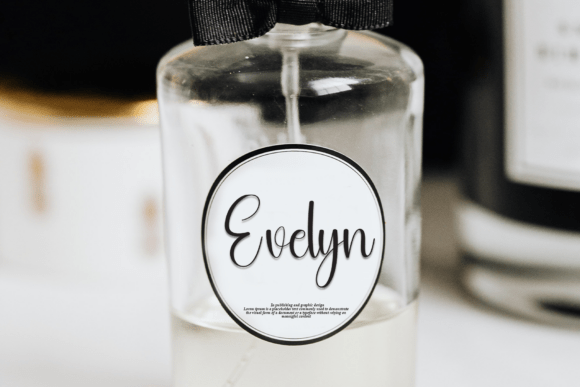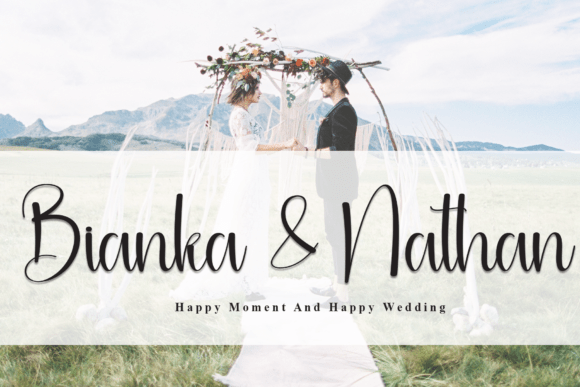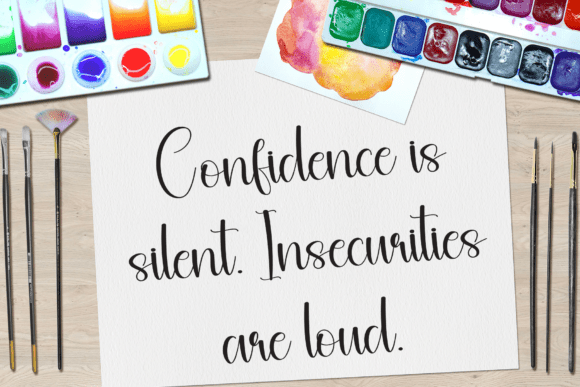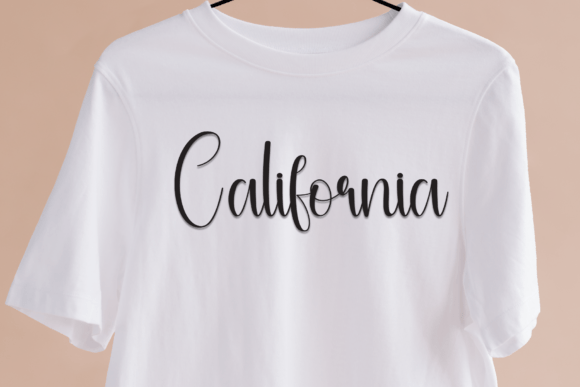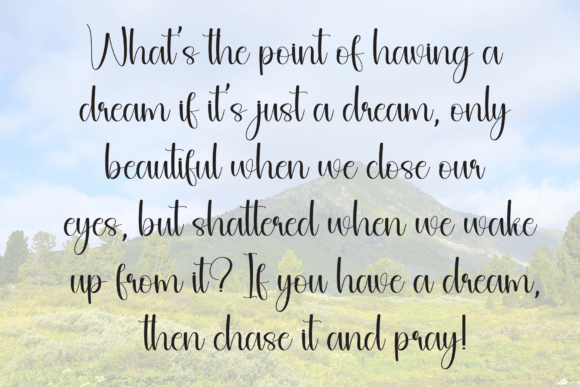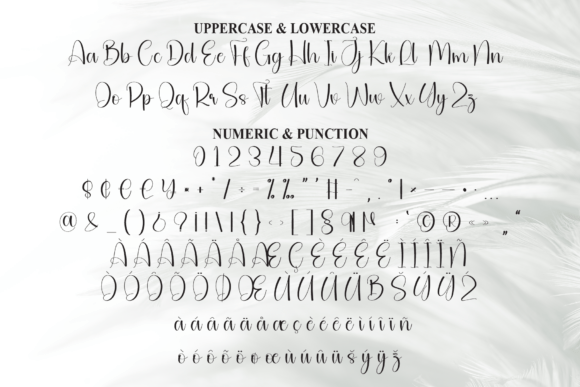
Introduction to Delicate Font
As a designer, there’s nothing quite like the thrill of creating a beautiful and unique project that captures the essence of your client’s brand or personality. It’s in these moments that the right font can make all the difference, elevating your design from ordinary to extraordinary. I recall a project where a client asked me to create a set of wedding invitations that exuded elegance and whimsy. That’s when I stumbled upon the Delicate Font – a stylish handwritten script font that would soon become the star of the show.
The Delicate Font is a true gem for designers, offering a delicate balance of playfulness and sophistication that’s hard to find in other fonts. With its flowing curves and natural rhythm, it adds a personal and charming touch to any project, from invitations and branding to social media and more.
Key Features of Delicate Font
- High-quality design: Delicate Font is crafted with attention to detail, ensuring a sophisticated and elegant look for your creative project.
- Unique characteristics: Delicate Font features a delicate and intricate design, making it perfect for use in creative projects that require a touch of elegance and sophistication.
Honest Review: Delicate Font
As a designer, I’m always on the lookout for unique and high-quality design resources to elevate my creative projects. The Delicate Font is a great addition to my design arsenal. One of the standout features of this font is its versatility – it’s perfect for both digital and print-based designs.
- ✨ The font’s delicate, cursive script makes it ideal for creative projects that require a touch of elegance.
- ✨ The high-quality design ensures that the font looks crisp and clear on any medium.
- ⚠️ The font may not be suitable for projects that require bold, sans-serif typography.
Overall, the Delicate Font is a great free download for designers looking for a unique and high-quality design resource. While it may have some limitations, its versatility and elegance make it a valuable addition to any design library.
Delicate Font is commonly used in wedding invitations, branding materials, and other design projects where a touch of sophistication is required. It’s also great for creating beautiful quotes, posters, and social media graphics.